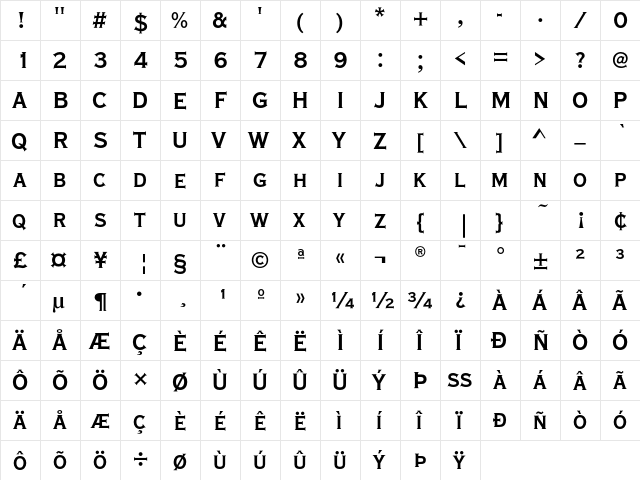
CopperplateEF BoldCond Font Preview
CopperplateEF BoldCond
Design Context for CopperplateEF Typeface
CopperplateEF is a composed and adaptable typeface that performs quietly and consistently across a wide range of design contexts. The heavy weight commands attention and anchors typographic hierarchies. The condensed width makes it efficient for tight spaces without sacrificing legibility.
Pro Tip: Use CopperplateEF in both headline and body roles to test its range before committing to a single application.